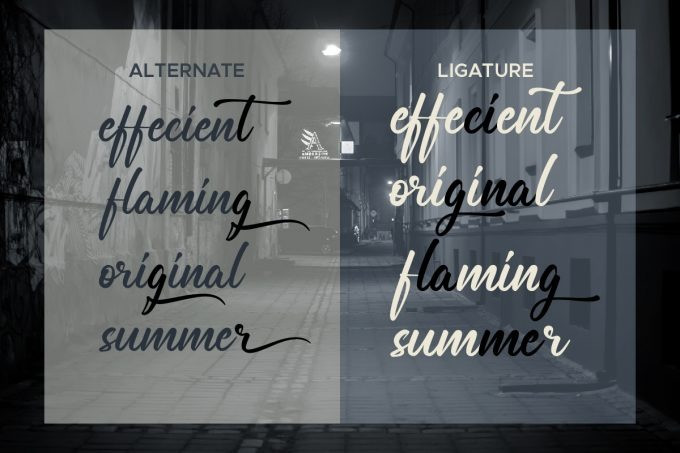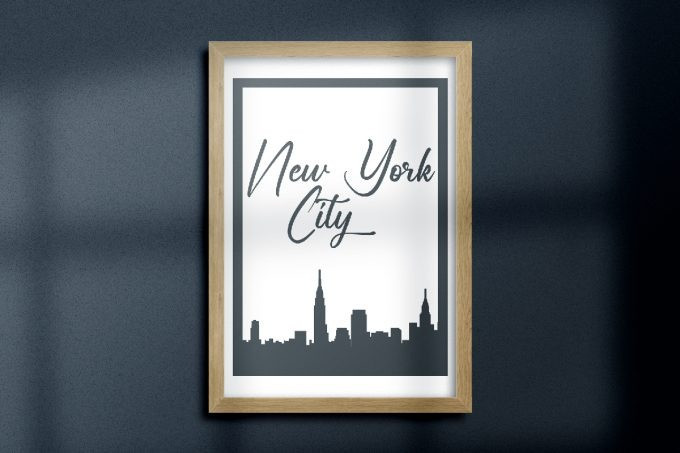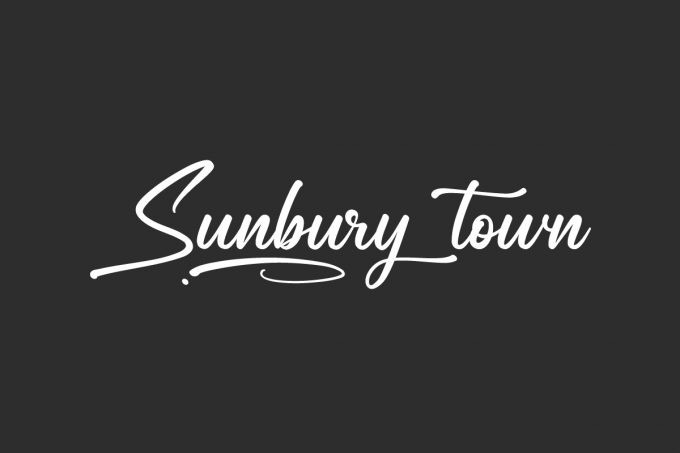
Sunbury Town Script Font
Sunbury Town Font is a stunning handwriting signature font crafted carefully in every its single letter so we can make sure it has great looking. Carefully designed to work together in harmony and This one should make your designs instantly professional and jaw-dropping!
Sunbury Town Signature Font includes full set of Uppercase and Lowercase Basic Characters, Numerals and Punctuation. Also it contains ligatures to make it flowless characters to perfectly make awesome look that add more aesthetic fonts to perfect your extraordinary project. Sunbury Town Font will be great for writer, musician, singer, CEO, composer, architect, etc